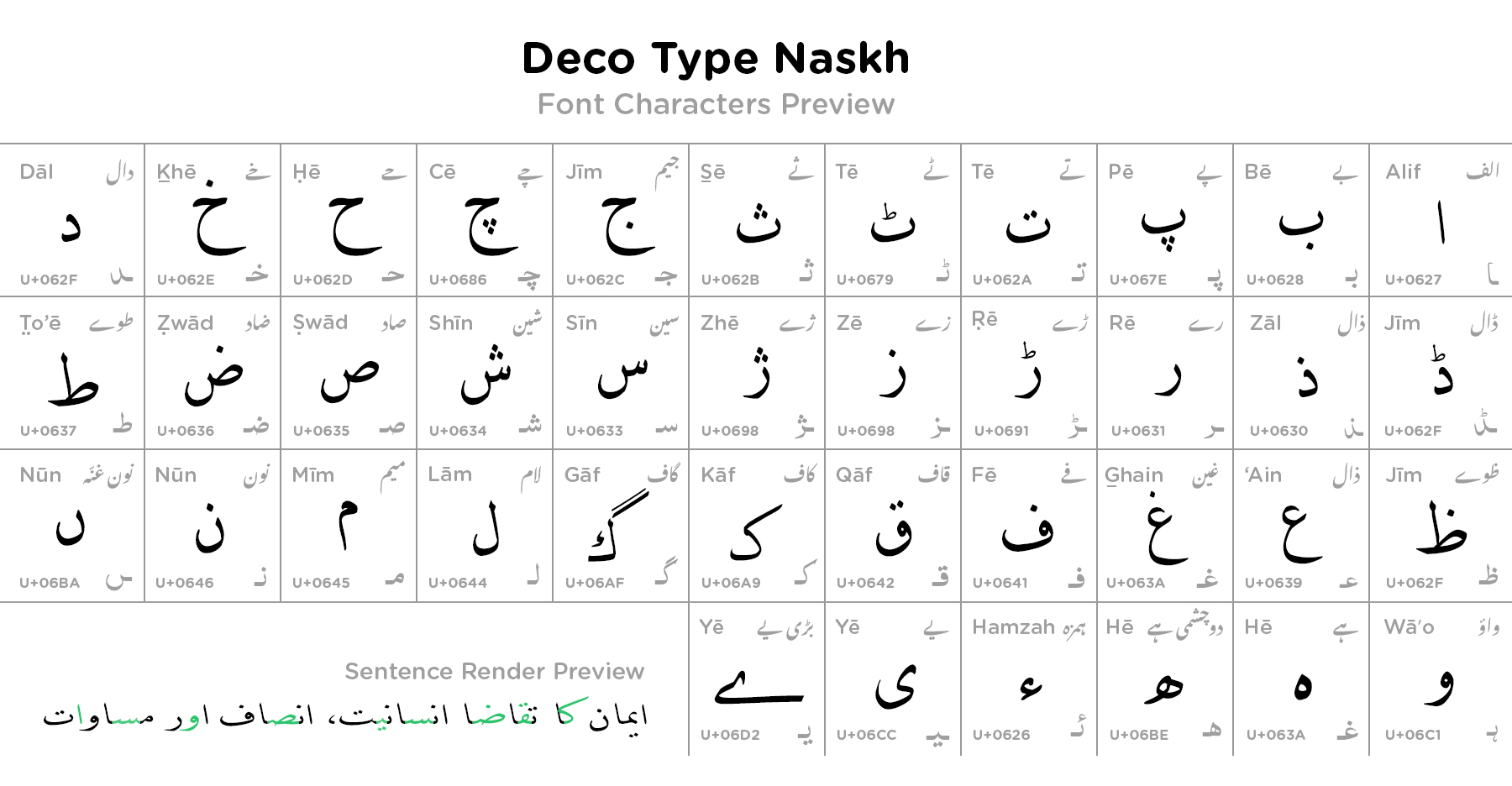
Deco Type Naskh, designed by Mojtaba Kia and produced by DecoType, is aesthetically pleasing and highly functional. Thanks to its comprehensive Unicode support, it can be used to fulfill different design needs. With its 791 characters and symbols, the font offers compatibility with a wide range of languages, including Urdu, Arabic, Latin, and Persian. This makes it versatile for use in diverse, multilingual projects, ensuring smooth integration and communication across different platforms and mediums. With its regular style and balanced thickness, Deco Type Naskh is perfect for longer texts where legibility is paramount. Its delicate strokes and changing thickness give it a refined appearance, while its gentle curves add fluidity. The font maintains consistent stroke weights for digital diversity and balanced spacing for readability.